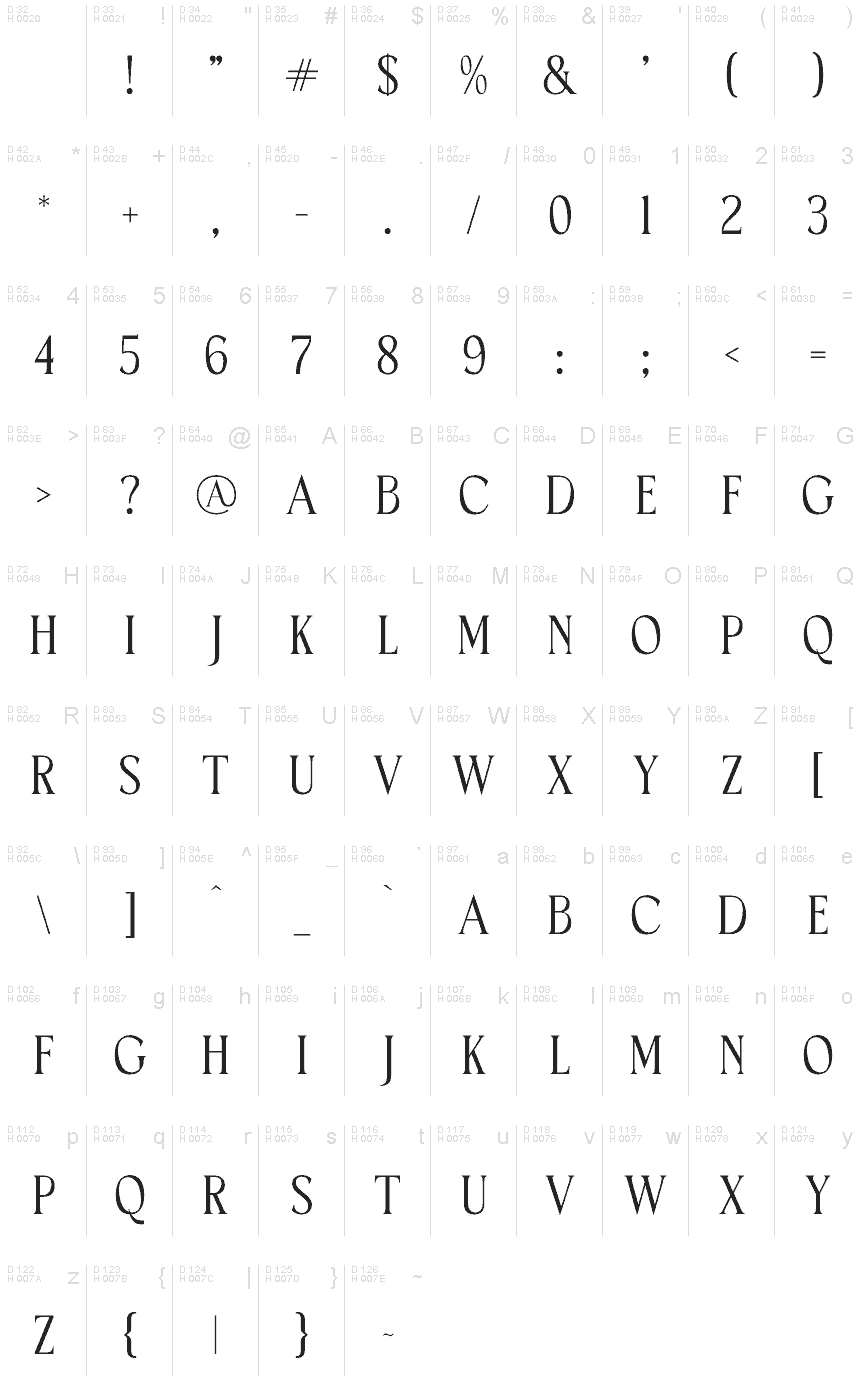
Horge
Horge font by Storytype Studio perfectly balances condensed width and neat serifs for a gracious classic type style. The font exhibits sophisticated curves with both thin and thicker strokes, luxuriuosly combined with sharp edges, thus achieving an elegant and refined look. Classic and timeless in nature, this free serif font will bring class to every design.
Typography projects, headers, posters, online ads, newspapers/magazine articles can all benefit from Horge's aesthetics. In addition to that, wedding invitations, greeting cards (both printed or digital), flyers, social media covers/designs are some other covered uses cases of this exquisite text style.